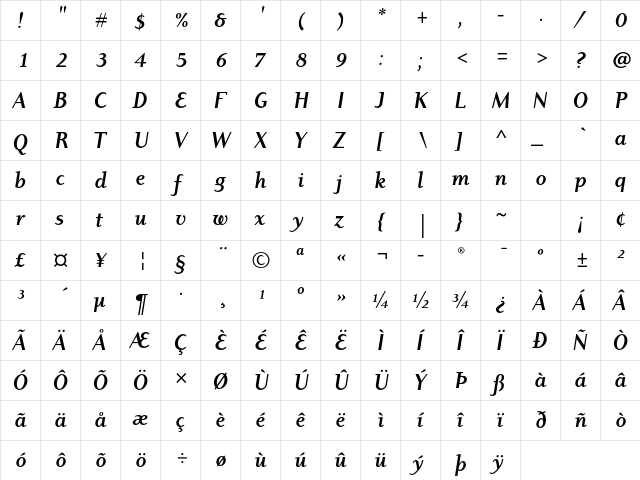
Dyadis ITC Std Bold Italic
| Designer | Yvonne Diedrich |
Design Context for Dyadis ITC Std Typeface
Dyadis ITC Std is a composed and adaptable typeface that performs quietly and consistently across a wide range of design contexts. The slanted form adds forward momentum and visual energy. Its bold stroke weight gives it real presence on the page.
Pro Tip: Use Dyadis ITC Std for emphasis, pull quotes, and subheadings where its slanted energy can add rhythm to the layout.